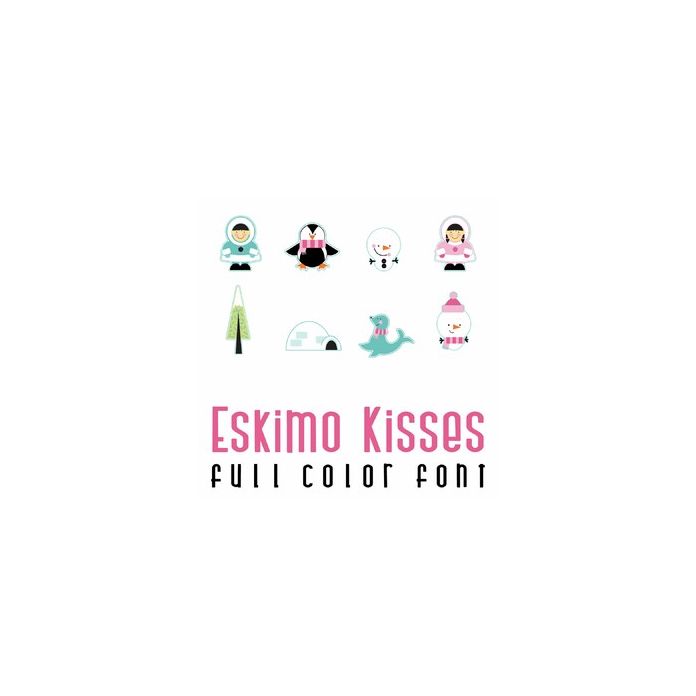
This fun full-color doodlebat font features 26 adorable Wintery friends from penguins, Eskimos, seals and more! perfect for cards, crafts, gifts, scrapbook pages, planner stickers, and more!